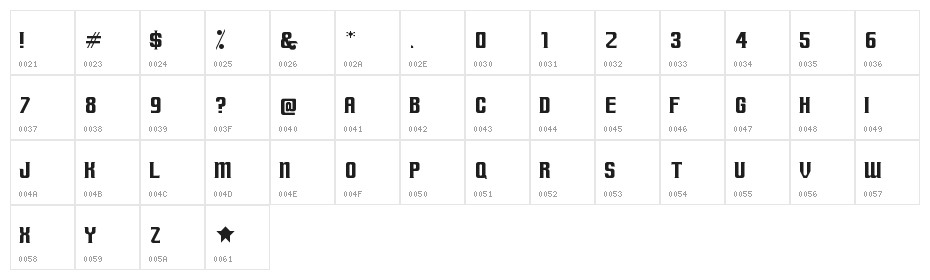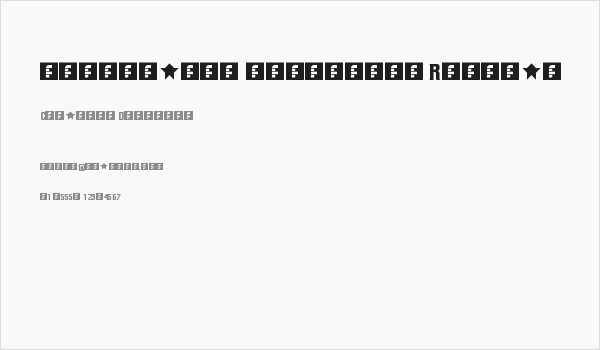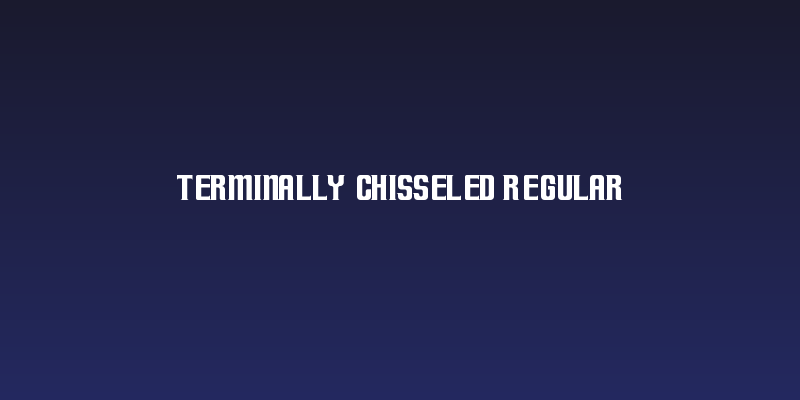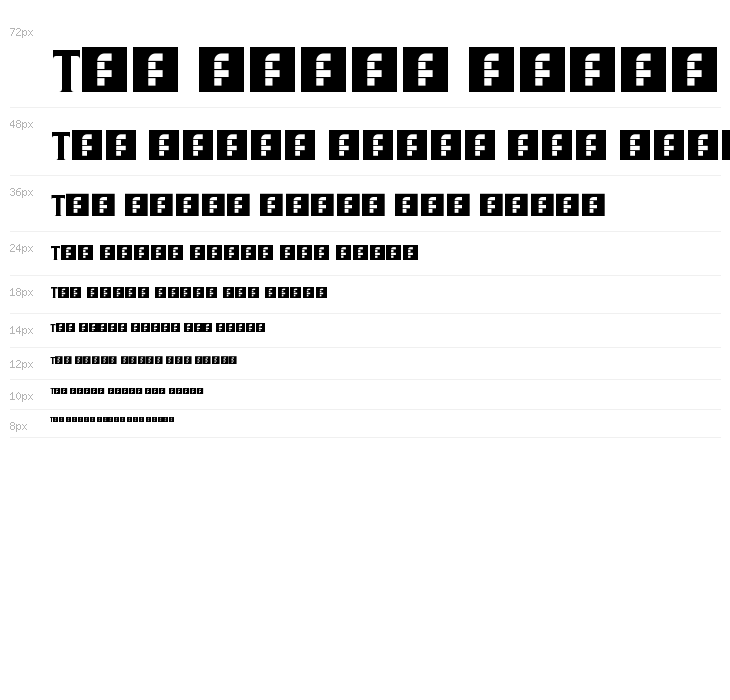
terminally chisseled Regular Font
terminally chisseled Regular Description
This font features a bold and impactful design with a distinctly chiseled appearance. The uppercase letters are strong and commanding, with sharp edges and a slightly condensed form. The numbers and special characters maintain the same boldness, ensuring consistency across all elements. The font's style is reminiscent of vintage or retro designs, making it ideal for projects that require a touch of nostalgia or a strong visual presence. The characters are evenly spaced, providing a balanced and cohesive look.